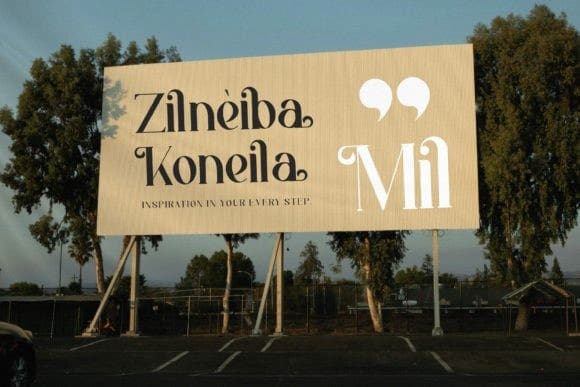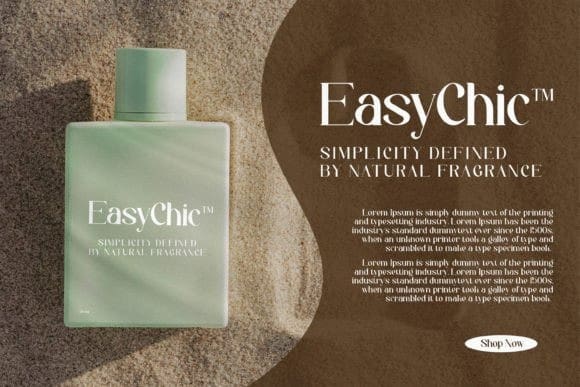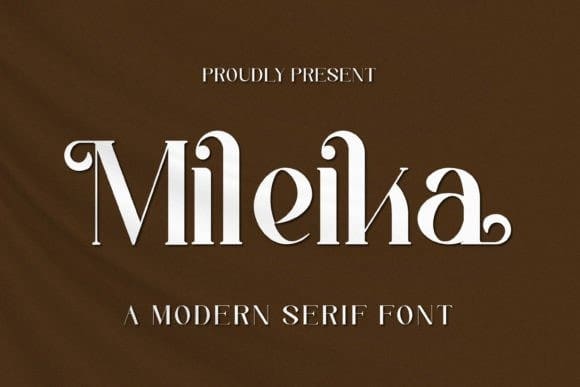
Mileika Font
Mileika Font is a premium serif font, perfect for any project like: logos, branding projects, homewares designs, product packaging, mugs, quotes, posters, shopping bags, t-shirts, covers books, business cards, invitation cards, greeting cards, labels, photography, watermarks, special events and all your other luxury projects that require a premium taste.